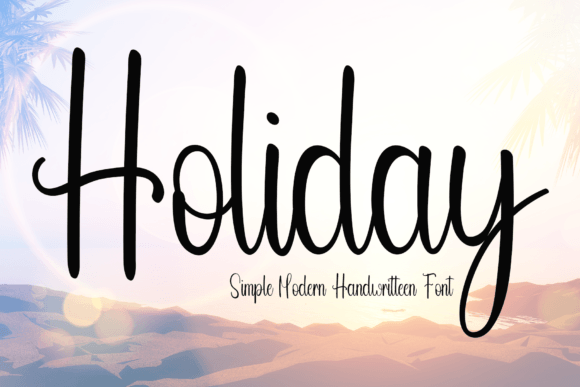
Introducing the gorgeous and sweet handwritten script font, Holiday Font! Created by the talented Balak bendol, this font is perfect for adding a joyful and romantic touch to all of your projects. With its delicate strokes and charming curves, Holiday is an excellent choice for those seeking a font that exudes beauty and elegance.
As a script font, Holiday is incredibly versatile and can be used for a variety of design ideas. However, it truly shines as a "Font For Business Name" option. Its graceful yet professional appearance makes it ideal for businesses that want to make a lasting impression on their customers. Imagine the impact of seeing your brand name written in this lovely font on a business card, sign, or website!
But Holiday is not just for business use. It's perfect for personal projects as well, such as invitations, greeting cards, and wedding stationery. The font's romantic and gentle feel is sure to evoke emotions of love and joy in your recipients. Whether you're planning a wedding, a baby shower, or a birthday celebration, Holiday Font will help you create a memorable and heartfelt experience.
And let's not forget about the holiday season! As the name suggests, Holiday Font is the perfect font for creating festive and cheerful designs. Use it on your holiday cards, gift tags, or social media posts to spread the holiday spirit and make your messages stand out.
In summary, Holiday Font is a must-have for anyone looking for a beautiful and charming script font. Its versatility, elegance, and romantic feel make it an excellent choice for businesses and individuals alike. Download Holiday Font today and add a touch of joy and beauty to all of your projects!